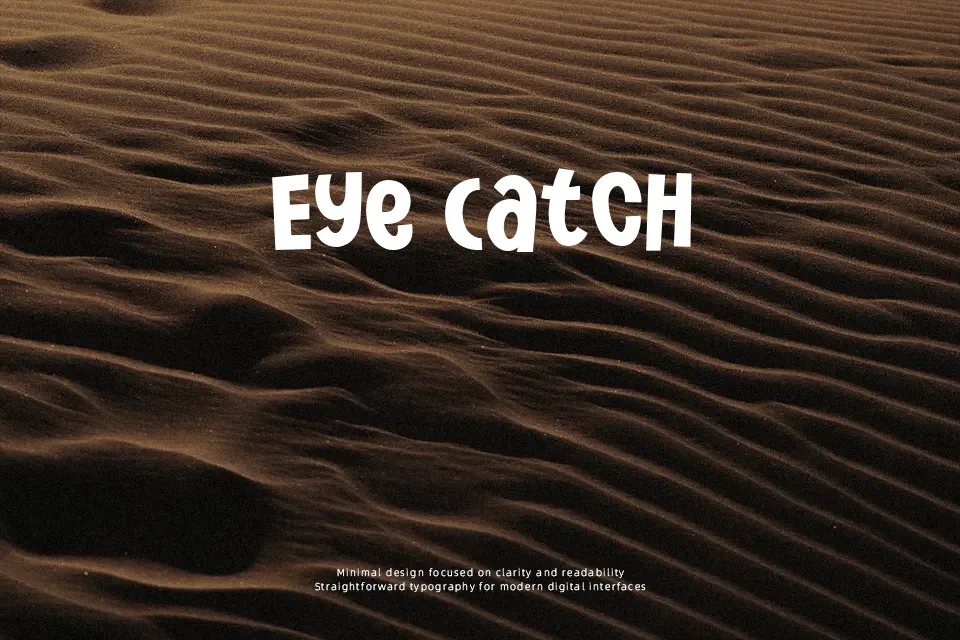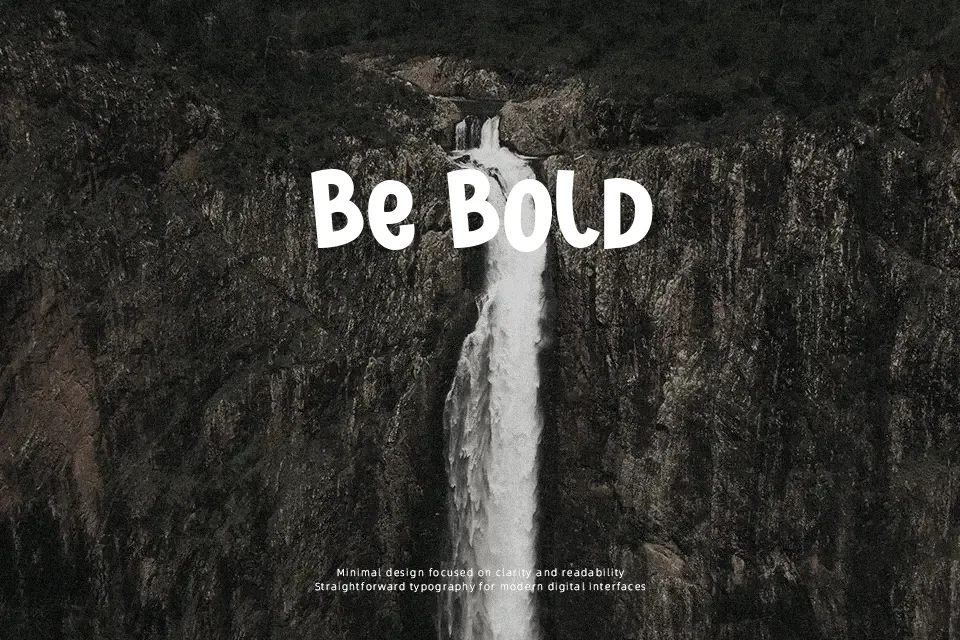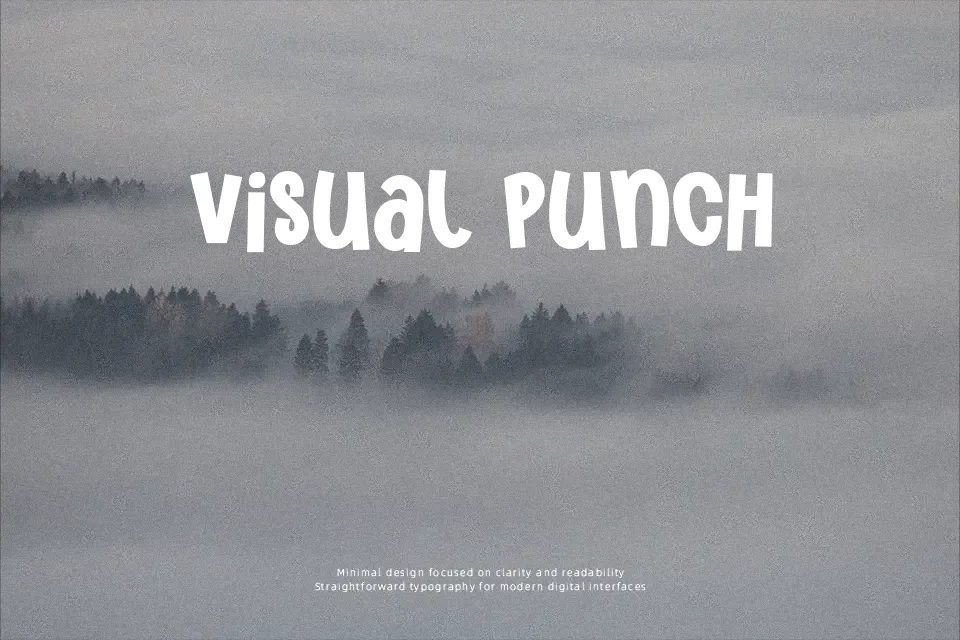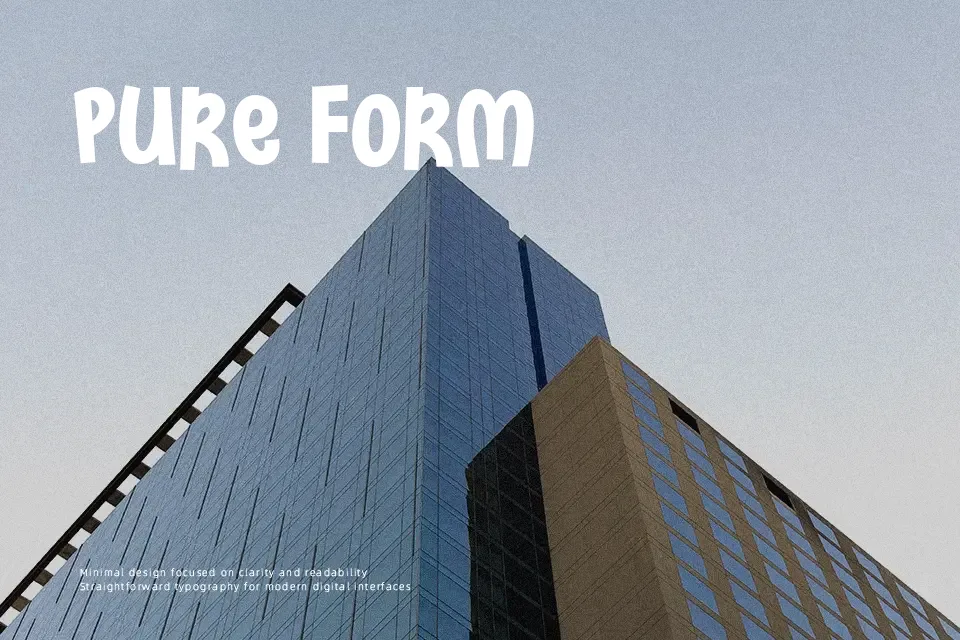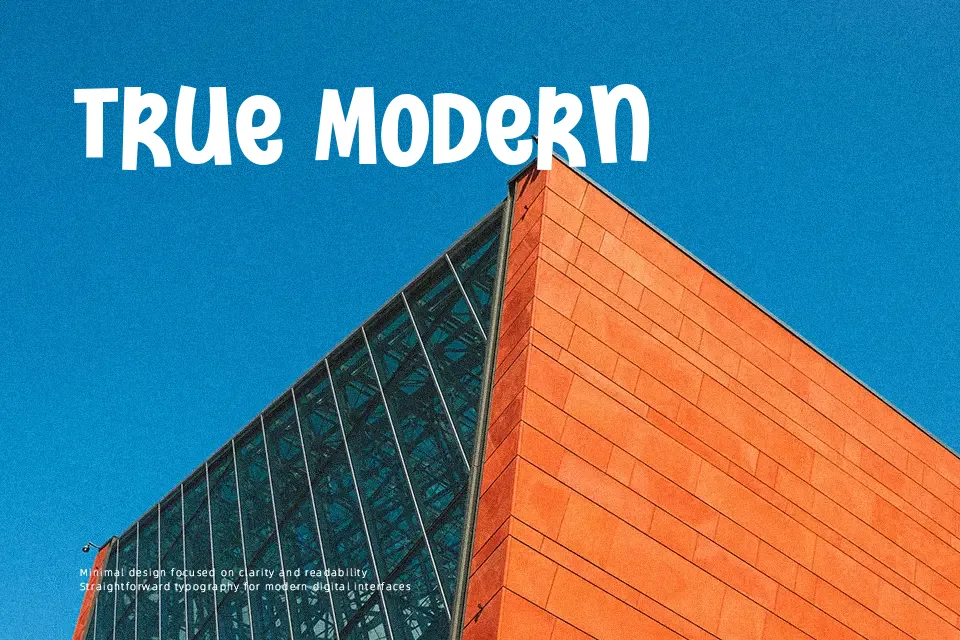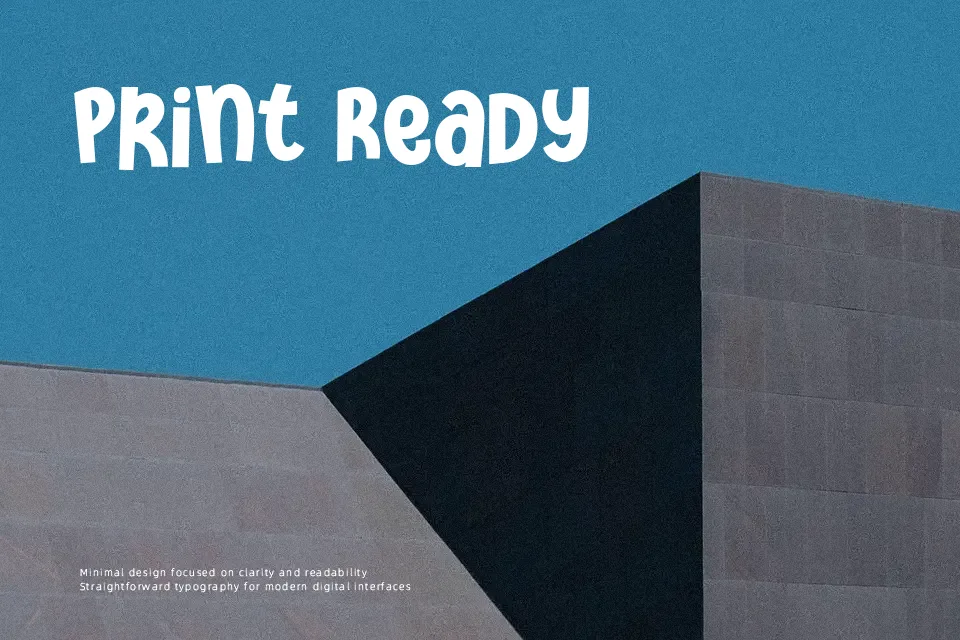
Bestoom Font
Bestoom carries a deliberately uneven, bouncy rhythm — letters shift in height and angle, giving the impression of hand-drawn cartoon lettering rather than a polished typeface. The stroke weight is bold and consistent, and the spacing leans open, making individual characters easy to read at large sizes. It fits naturally in children’s birthday invitations, animated YouTube thumbnails, or playful product packaging headers where a casual, expressive tone is needed. That said, Bestoom loses legibility fast at small sizes, and its cartoon personality makes it a poor match for anything that needs to feel authoritative or professional. If you want impact without loud decoration, this font does the job at display scale — but keep it for headlines only.
Best For:- Children’s book covers and chapter headers
– Animated social media thumbnails and event posters
– Kids’ party invitations or birthday card titles
– Toy packaging and cartoon brand wordmarks
Not Ideal For:- Body text or long-form reading
– Corporate presentations or formal reports
– Small-size UI labels or navigation text
– Luxury or premium brand identity work
Perfect for branding, headline, and invitation, with a creative and cartoon style.